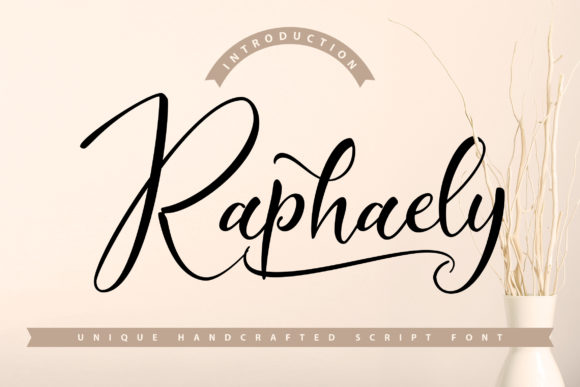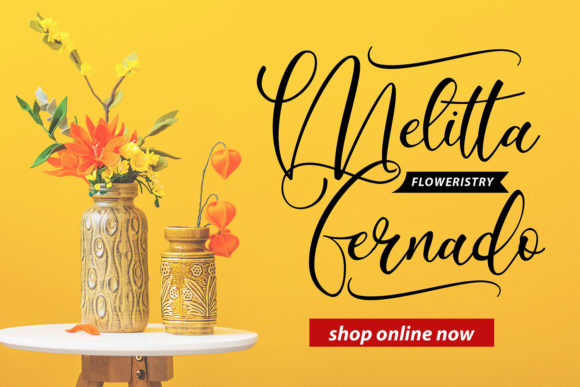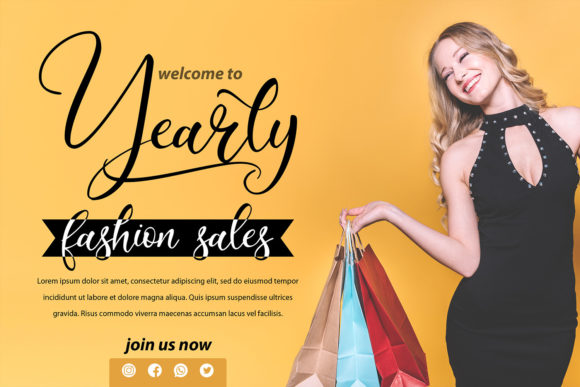
About Raphaely Font
Raphaely is a whimsical and relaxed script font that adds a touch of playfulness and charm to any design project. With its delightful curves and flowing letterforms, this font exudes a sense of joy and creativity. No matter the topic or purpose, Raphaely is a valuable asset for your font library, as it has the potential to enhance and elevate any creation.
The unique style of Raphaely sets it apart from other script fonts. Its loose and casual letterforms give it a hand-drawn quality, evoking a sense of spontaneity and artistic flair. Whether you’re designing greeting cards, invitations, quotes, logos, or any other creative project, Raphaely adds a touch of whimsy and personality that instantly captures attention.
One of the standout features of Raphaely is its versatility. The font effortlessly adapts to various design themes and styles, making it suitable for a wide range of projects. Whether you’re going for a playful and lighthearted look or a more refined and elegant aesthetic, Raphaely can be customized to suit your needs.
With Raphaely, you have the option to experiment with its varied character set and OpenType features. This font offers a selection of alternate glyphs, swashes, and ligatures, allowing you to create unique and eye-catching letter combinations. These additional elements add a sense of customization and personalization to your designs, making them truly one-of-a-kind.
Furthermore, Raphaely’s relaxed and friendly nature makes it a great choice for projects that aim to connect with the audience on an emotional level. It brings a sense of warmth and approachability, making it ideal for designs related to lifestyle, wellness, and personal branding. The font’s inviting and charming style resonates with people, creating a positive and memorable visual experience.
Whether you’re designing for print or digital media, Raphaely delivers both style and legibility. Its carefully designed letterforms ensure readability, while its playful elements bring a touch of character and fun. The font can be used for various applications such as headlines, branding, packaging, social media graphics, and more.
In summary, Raphaely is a whimsical and relaxed script font that adds a delightful and charming touch to any design project. Its versatility, alternate glyphs, and friendly nature make it a valuable asset for your font library. Embrace the creativity and joy that Raphaely brings and elevate your creations to new heights.